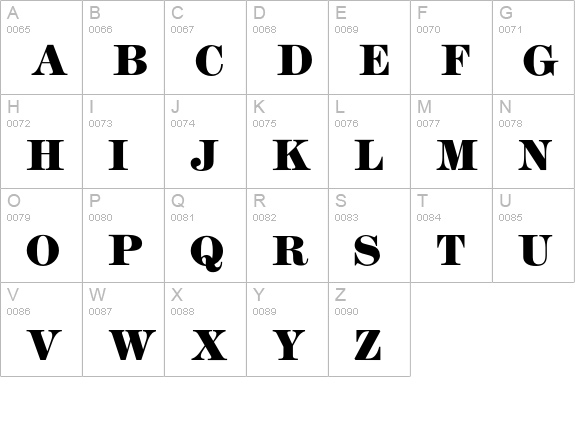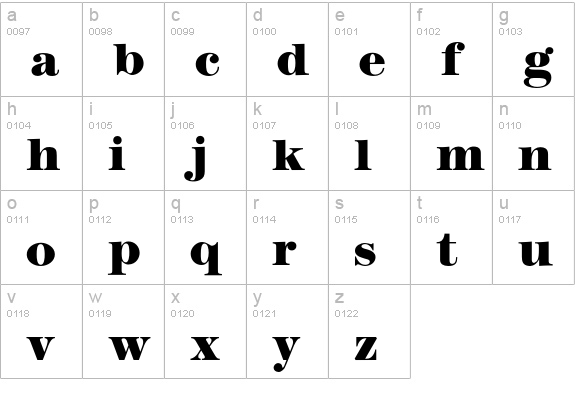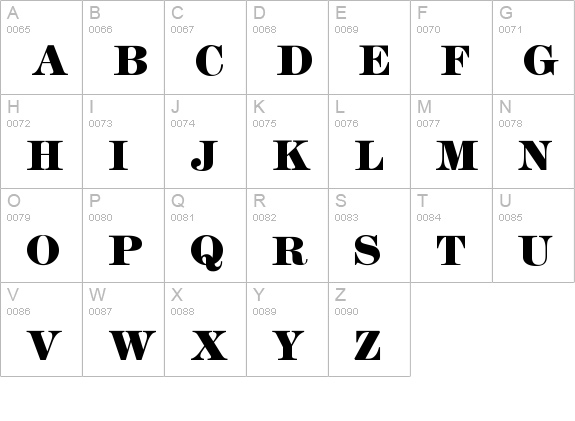
ModernHeavy Font Details
ModernHeavy font is a sleek and bold typeface that exudes a contemporary and confident aesthetic. With its strong and commanding presence, this font is perfect for making a statement in your design projects. The clean lines and sharp edges of ModernHeavy make it ideal for headlines, posters, branding, and any other creative application where you want to grab attention. The best part is that ModernHeavy font is completely free to download at FontsMarket.com. Whether you're a professional designer or a hobbyist looking to add a touch of modern sophistication to your work, ModernHeavy is a versatile and stylish choice that won't cost you a thing. So why wait? Download ModernHeavy font today and elevate your designs with its bold and modern appeal.